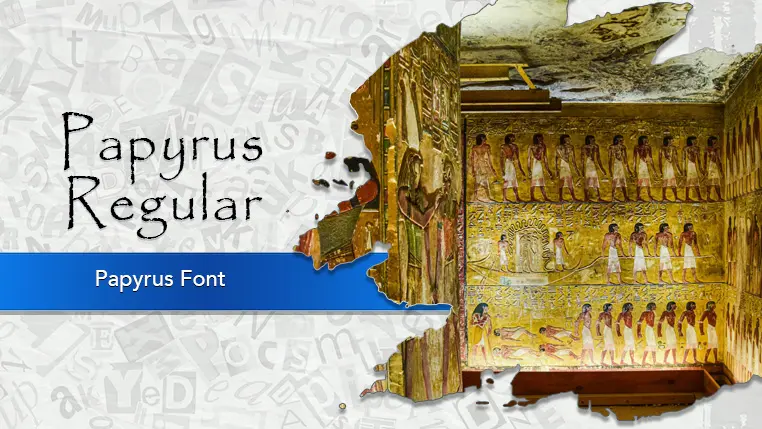
The Papyrus font family may be ideal for you if you enjoy working on an artistic design project. The lively, expressive look of this typeface, which was created by Chris Costello, makes it ideal for Creative and decorative projects. The font's organic, textured appearance makes it a good fit for products or brands that want to convey a sense of nature, handmade craftsmanship, or health. You might see it on herbal tea packaging, yoga studio signs, or organic food labels. Papyrus is often used for projects related to antiquity, mythology, or ancient civilizations. It's a popular choice for book covers, movie titles (like Avatar), or posters with a historical or mystical feel. and other light-hearted visual projects.
Regular are the one primary font styles of the Papyrus font family. You may build dynamic, visually appealing text layouts with the distinct flair that each style offers. With crisp, readable lines and a relaxed tone.